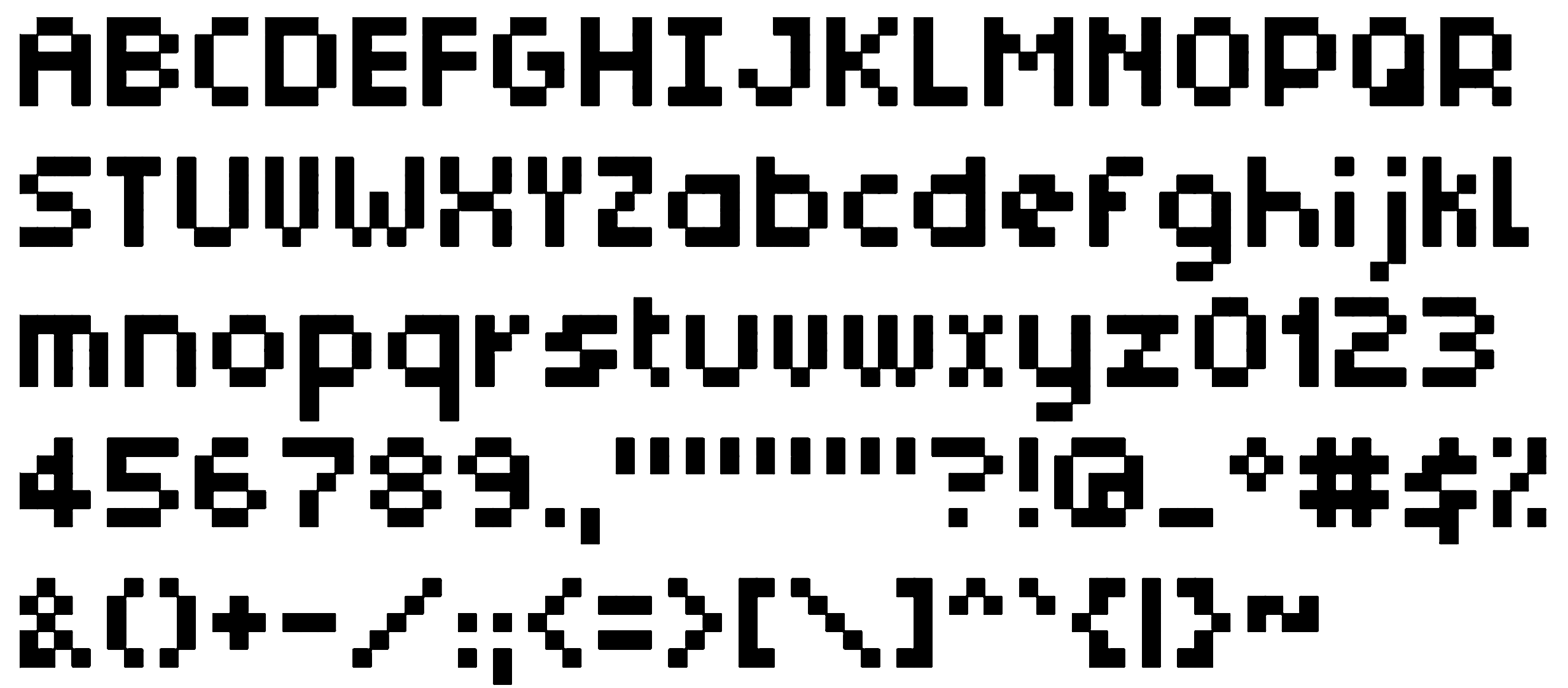
Pixel It! - Pixel Art & Gameboy Font
A 98-glyphs 5x4 pixel font, perfect for Game Boy games development, pixel art, and general retro look. I have also created a GB Studio version for your projects.